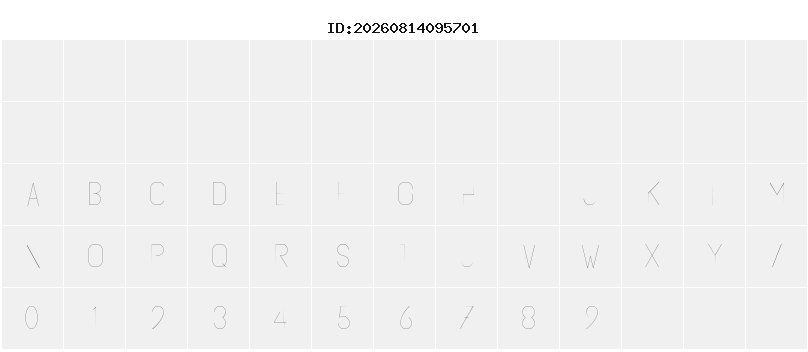
SubtleSansUltraLight Preview
• Font Name: SubtleSansUltraLight
• Full Font Name: SubtleSansUltraLight-Regular
• PostScript Name: SubtleSansUltraLight-Regular
• Designer: Atle Mo
About SubtleSansUltraLight.ttf
SubtleSansUltraLight.ttf is a modern, elegant sans-serif font designed for ultimate readability and visual harmony. Perfect for branding, headlines, web design, and print materials.